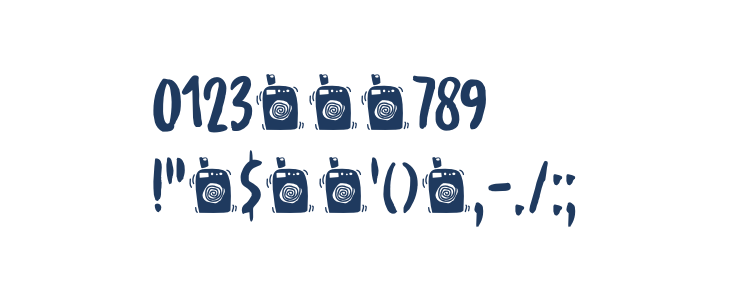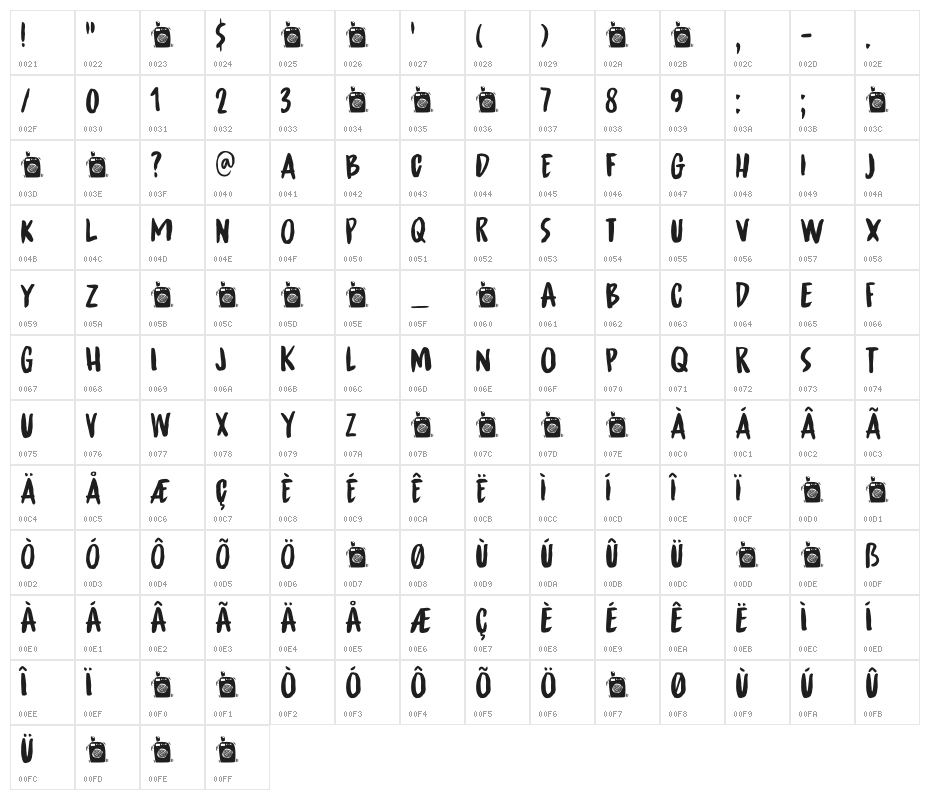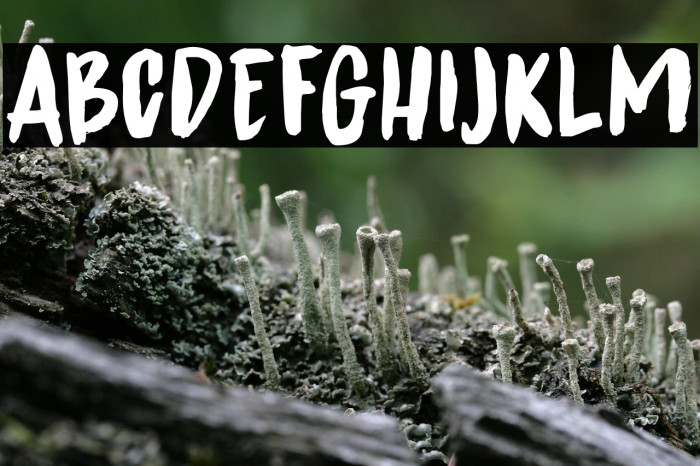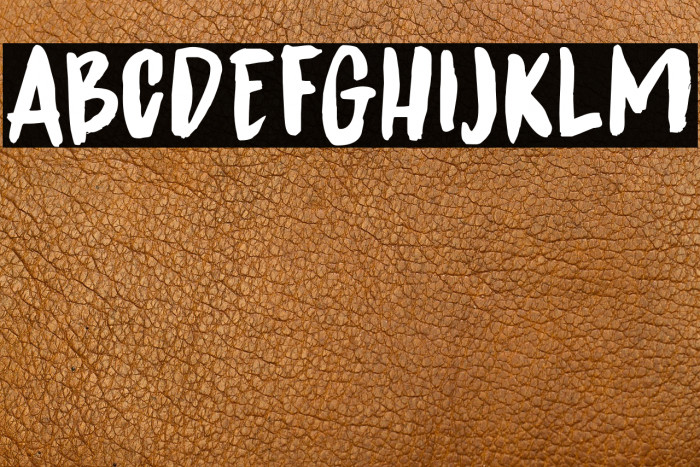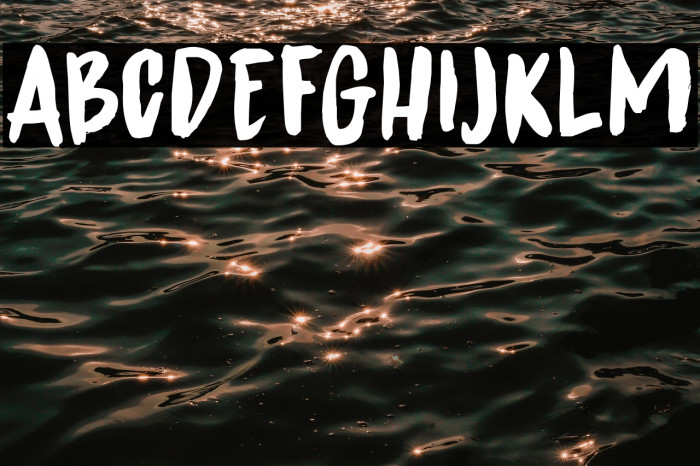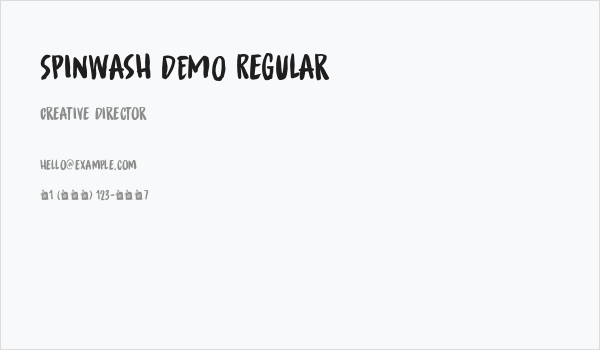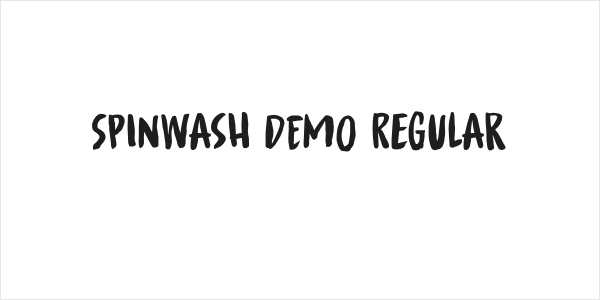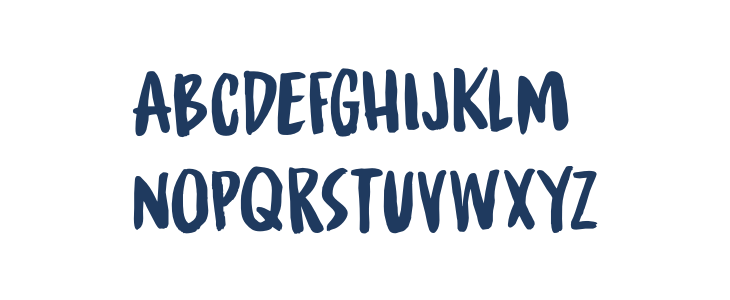
Spinwash DEMO Regular Font
Spinwash DEMO Regular Description
This font features a bold, expressive style with a hand-painted appearance. The characters are slightly irregular, giving them a dynamic and energetic feel. The uppercase and lowercase letters maintain a consistent thickness, which adds to the boldness of the font. The numbers and special characters follow the same stylistic approach, ensuring a cohesive look across all elements. The font's playful and artistic nature makes it suitable for creative projects that require a touch of personality and flair.
| Proposed Projects | Ideal for posters, branding, packaging, and any creative projects that benefit from a bold and artistic touch. |